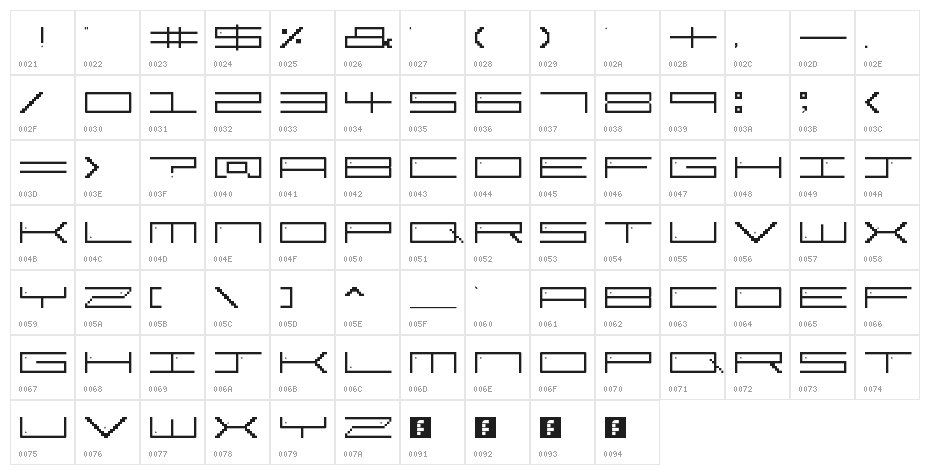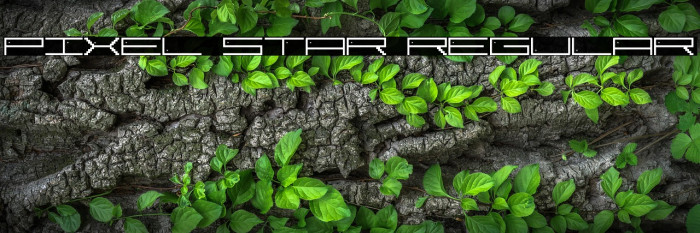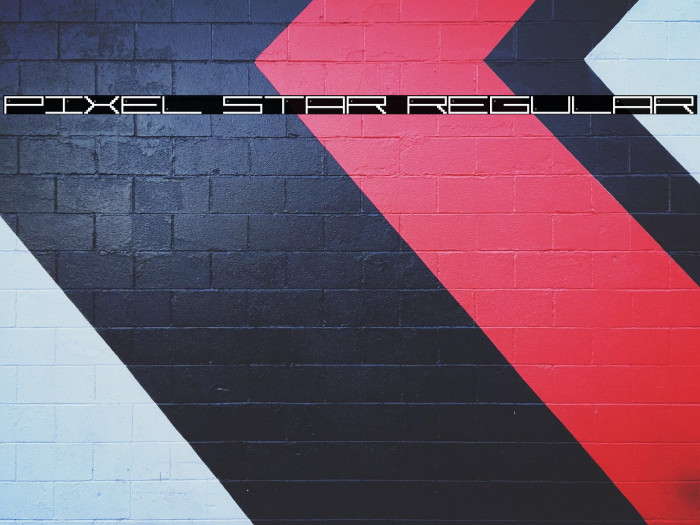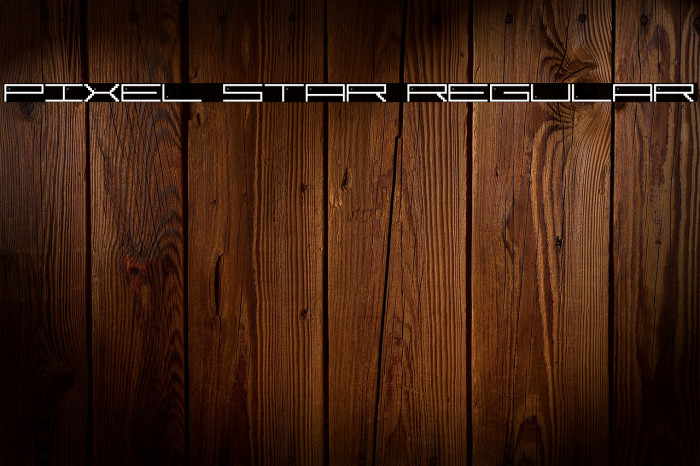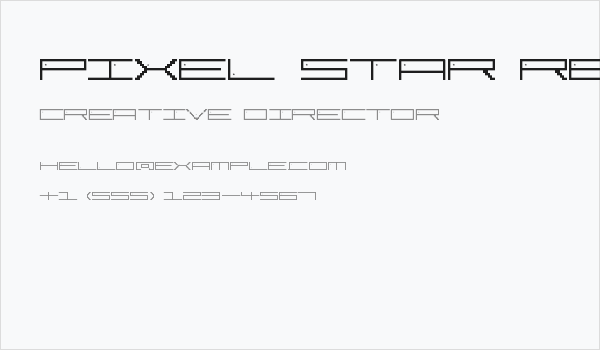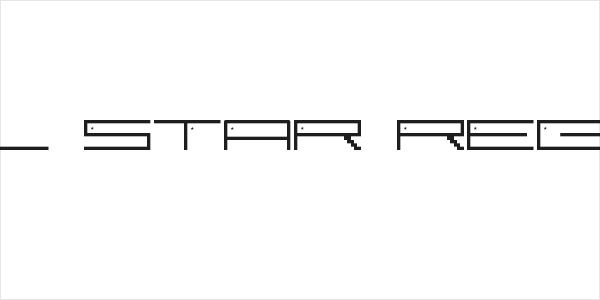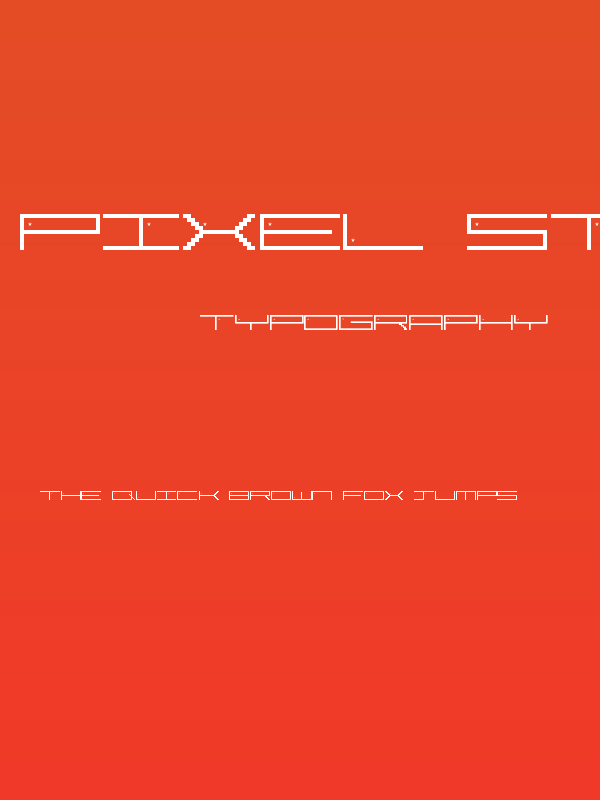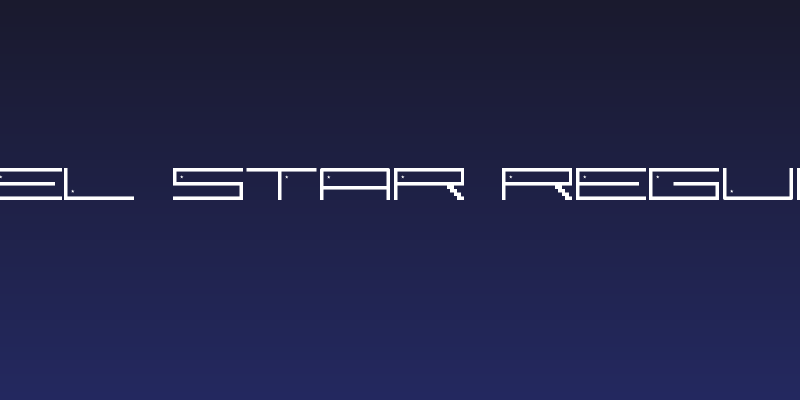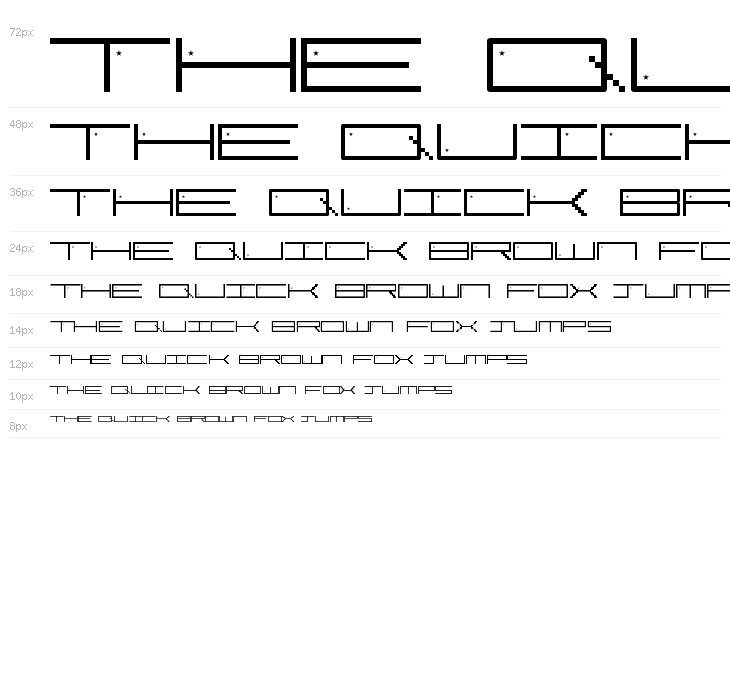
Pixel Star Regular Font
Pixel Star Regular Description
This font features a pixelated, geometric design that evokes a retro, digital aesthetic. Each character is constructed with a grid-like precision, giving it a distinct, blocky appearance reminiscent of early computer graphics or video game typography. The uniformity in stroke width across all characters contributes to a cohesive and structured look. Despite its rigid form, the font maintains readability, making it suitable for both display and text purposes. The characters are evenly spaced, ensuring clarity and legibility. This style is particularly effective in capturing a nostalgic or tech-inspired theme.
| Overall Style | Retro, Digital |
| Proposed Projects | Ideal for video game design, tech-themed posters, digital art projects, or any creative work that seeks to evoke a sense of nostalgia for early computing. |